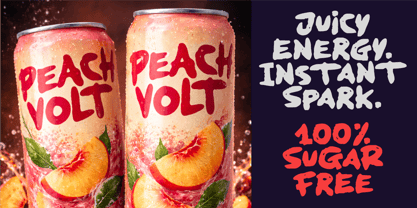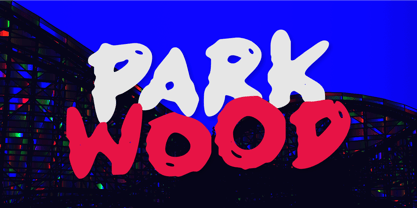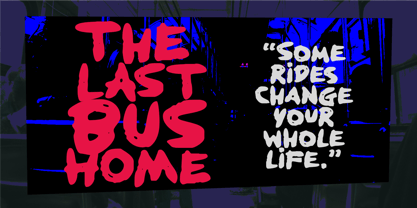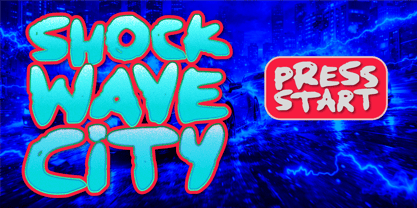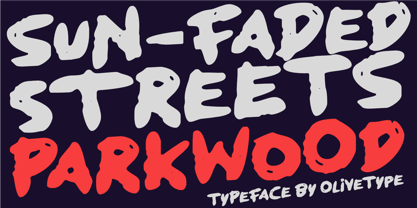
Parkwood
La familia tipográfica Parkwood fue diseñada por Nurul Hidayani y publicada por Olivetype. Parkwood contiene 1 estilos. Más información sobre esta familia
Parkwood is a bold, vintage-inspired rough display font packed with raw suburban attitude and 70s street energy. Built with chunky letterforms, organic edges, and a handcrafted brush-meets-marker texture, Parkwood feels like old movie posters, local bus stop graffiti, and classic Perth suburb nostalgia—reborn for modern design. This typeface is made to stand out in movie titles, drama posters, album covers, retro branding, streetwear logos, YouTube thumbnails, gaming titles, and bold packaging. Parkwood delivers strong readability while still keeping that gritty, imperfect personality that makes designs feel alive.